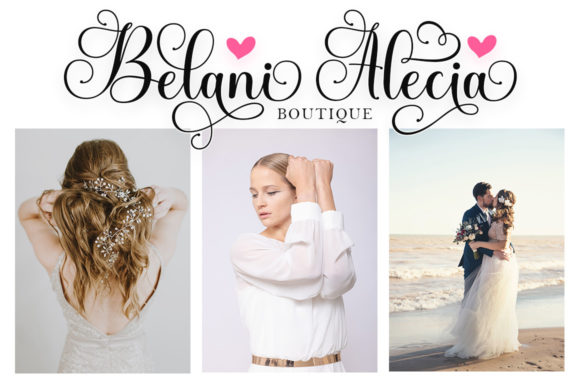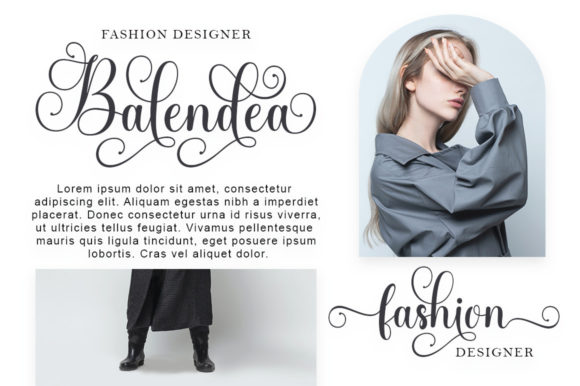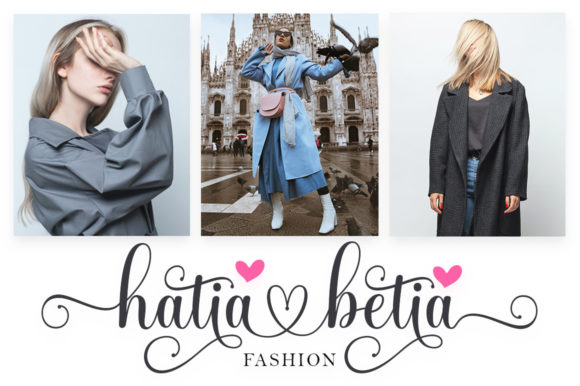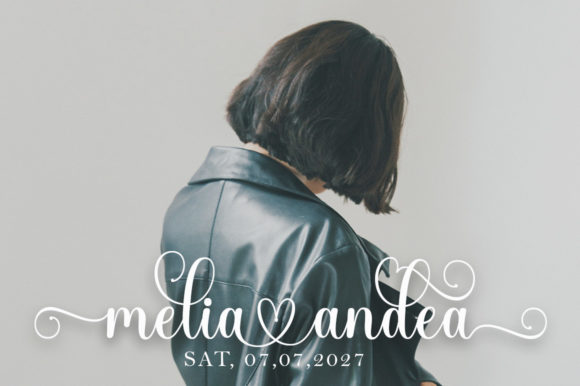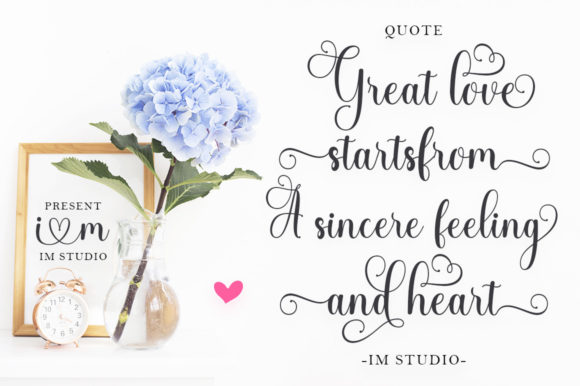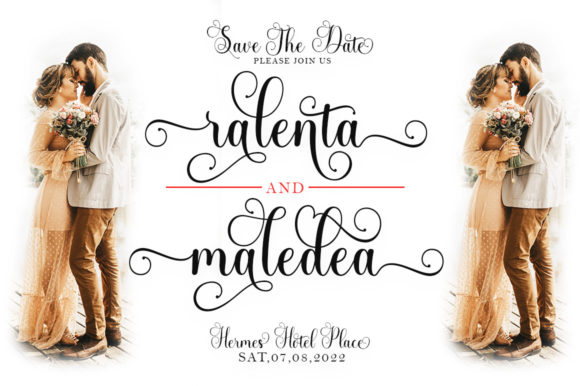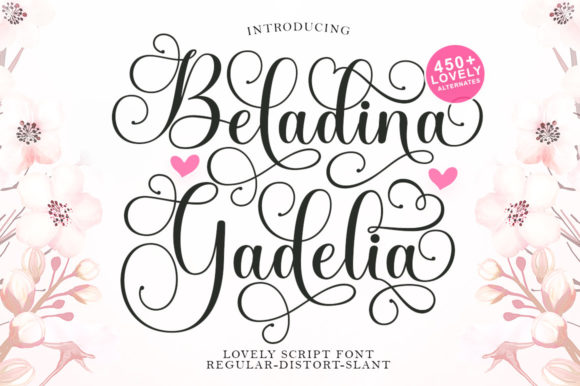
Discover the Elegance of Beladina Gadelia Font: A Timeless Choice for Designers and Crafters
In the world of typography, few fonts manage to capture the essence of elegance and timelessness. Beladina Gadelia, a lovely and carefully crafted handwritten font, stands out as a shining example. Its unique charm and versatility make it an ideal choice for designers and crafters looking to create eye-catching logos, branding materials, and quotes that leave a lasting impression.
Handwritten fonts have a special place in the hearts of designers and crafters. They bring a personal touch and warmth to any project, making it feel more approachable and engaging. Beladina Gadelia, with its flowing lines and delicate curves, embodies the beauty of handwritten typography. This font is not just a collection of letters; it’s an expression of artistry and creativity.
What Makes Beladina Gadelia Stand Out
So, what sets Beladina Gadelia apart from other fonts in the market? Here are a few key features that make it a standout choice:
- Lovely and Timeless Design: Beladina Gadelia boasts a classic yet modern design that fits perfectly into various design contexts, from vintage to contemporary.
- PUA Encoding: This font is PUA (Private Use Area) encoded, which means you can easily access all the glyphs and swashes. This feature is particularly useful for designers who want to add a personal touch to their work without the hassle of complicated font editing.
- Ease of Use: With Beladina Gadelia, accessing the extra glyphs and swashes is straightforward, allowing you to focus on the creative aspect of your project rather than getting bogged down in technicalities.
- Versatility: Whether you’re creating a logo, crafting a brand identity, or designing inspirational quotes, Beladina Gadelia adapts seamlessly to different design needs.
Applications of Beladina Gadelia
The versatility of Beladina Gadelia makes it suitable for a wide range of applications. Here are some of the ways designers and crafters can make the most of this beautiful font:
- Logo Design: Create memorable and impactful logos that stand out. Beladina Gadelia’s unique style can help brands establish a distinctive identity.
- Branding: Consistency in branding is key, and Beladina Gadelia can be a valuable asset in creating a cohesive visual identity across different platforms.
- Quotes and Typography Art: For crafters and artists who work with quotes and typography, Beladina Gadelia offers a sophisticated and elegant base to work with.
- Stationery and Invitations: Add a touch of elegance to your stationery, invitations, and greeting cards with this beautiful font.
Tips for Using Beladina Gadelia Effectively
To make the most of Beladina Gadelia, here are a few tips:
- Experiment with Sizes and Colors: Don’t be afraid to play around with different sizes and colors to find the perfect combination that suits your design.
- Pair it with Other Fonts: Beladina Gadelia can be paired with other fonts to create interesting contrasts and hierarchies in your design.
- Utilize Swashes and Glyphs: Take advantage of the PUA encoding to add decorative touches to your text.
Beladina Gadelia is more than just a font; it’s a tool for creativity and self-expression. Its timeless beauty, versatility, and ease of use make it an invaluable resource for designers and crafters. Whether you’re working on a professional project or a personal craft, Beladina Gadelia has the potential to elevate your work and make it truly unforgettable.
So, why settle for ordinary when you can create something extraordinary with Beladina Gadelia? Dive into the world of elegant typography and let your creativity shine with this lovely and timeless handwritten font.